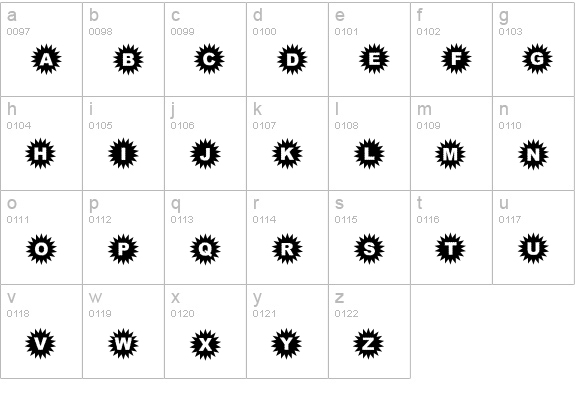
Starbats Font Details
Starbats font is a stunning display font that is sure to elevate any design project to new heights. With its unique and intricate design, Starbats font is perfect for adding a touch of elegance and sophistication to your work. Each letter in this font is meticulously crafted, featuring delicate shapes and intricate details that will captivate your audience. What sets Starbats font apart is that it is not only visually appealing but also incredibly versatile. Whether you're designing a logo, creating a poster, or crafting a social media graphic, this font will effortlessly adapt to any style or theme. Its clean lines and balanced proportions make it easy to read and comprehend, ensuring that your message is effectively communicated. One of the most remarkable aspects of Starbats font is that it is freely available to download at FontsMarket.com. This means that you can enjoy the beauty and sophistication of this font without having to spend a single penny. Whether you're a professional designer or a hobbyist, having access to high-quality fonts like Starbats font can greatly enhance your creative endeavors. With Starbats font, you can unleash your imagination and bring your design visions to life. The possibilities are endless with this font, allowing you to create visually stunning and impactful designs that will leave a lasting impression on your audience. Don't miss out on this incredible opportunity to elevate your designs with the beauty and versatility of Starbats font. Download it for free at FontsMarket.com today and let your creativity soar.